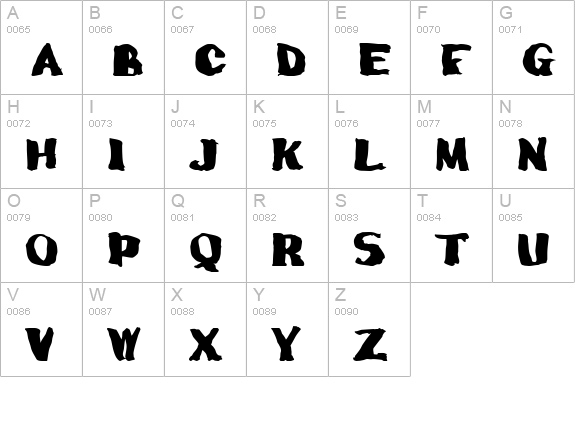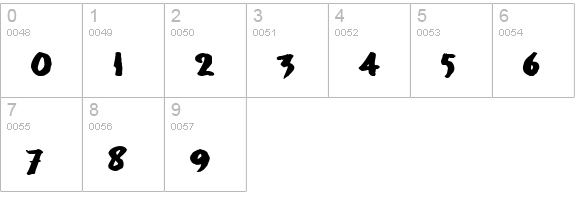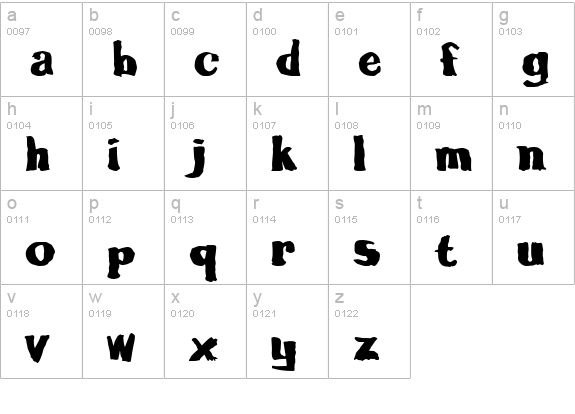
calamityJoe Font Details
CalamityJoe font is a bold and dynamic typeface that exudes a sense of adventure and excitement. With its rugged edges and unique character shapes, this font is perfect for creating eye-catching designs that demand attention. Whether you're working on a poster, logo, or website, CalamityJoe will add a touch of personality and flair to your project. The best part? CalamityJoe font is available for free download at FontsMarket.com. That's right, you can easily access this versatile font and use it in your personal or commercial projects without any cost. Don't miss out on the opportunity to add CalamityJoe to your font collection and unleash your creativity with this stunning typeface.